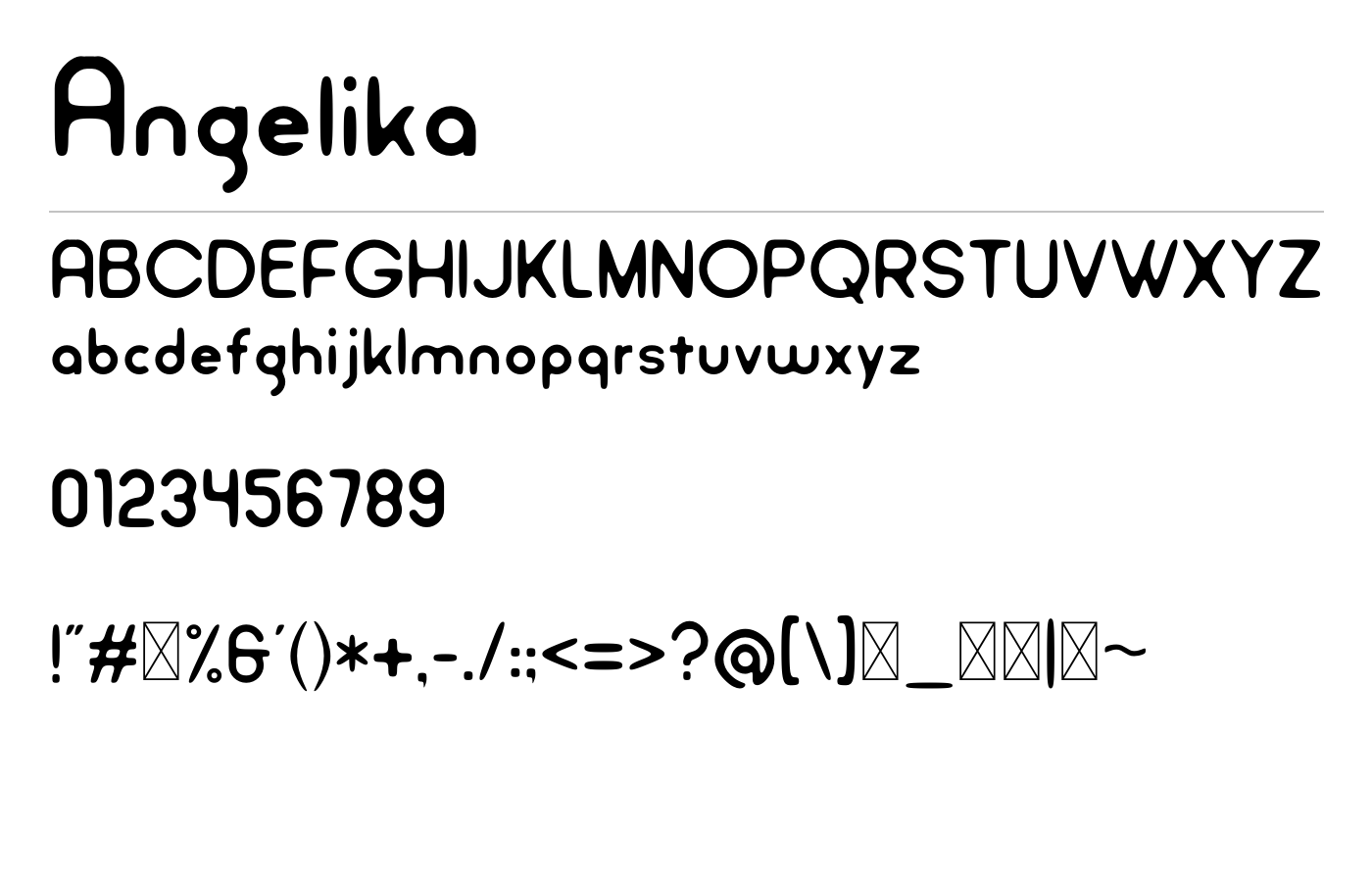
Angelika is a rounded sans serif font with a playful, friendly personality, featuring smooth, uniform strokes and moderate x-height. Its clean yet whimsical letterforms, including single-story 'a' and 'g', make it ideal for casual branding, children’s materials, and informal headlines. This font’s approachable style works well where a warm and inviting tone is desired, balancing readability with a fun character.
Angelika Font
About Angelika Font